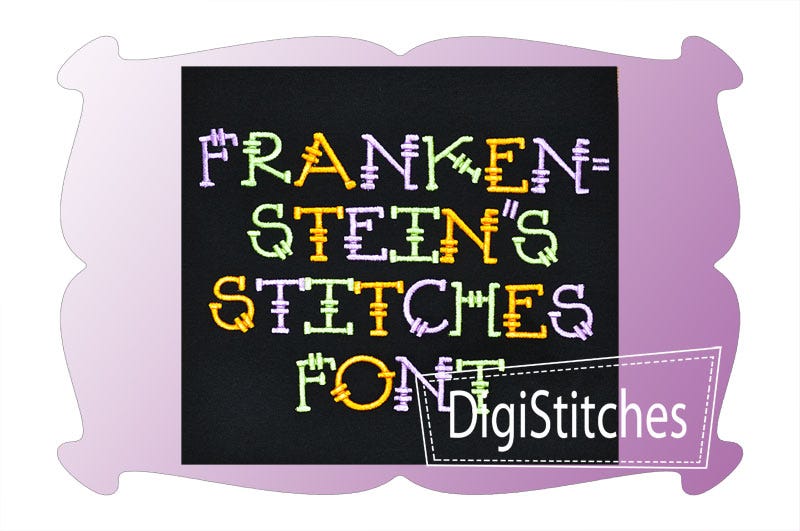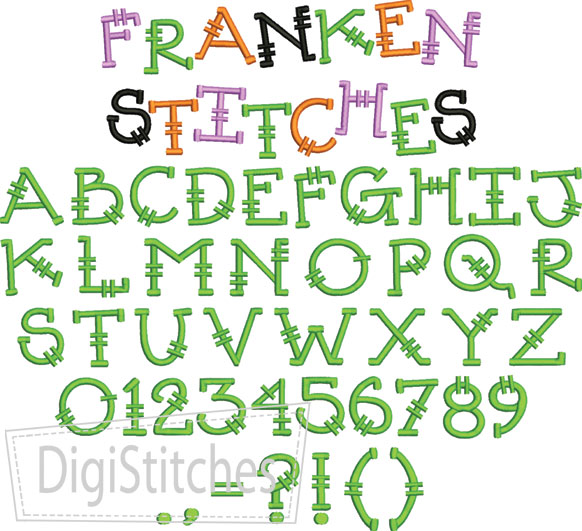
Frankenstitches Satin Stitch Embroidery Font
Frankenstitches Embroidery Font
Frankenstitches is the perfect font for Halloween shirts, tote bags and buckets.
With it's wonky letters with dashes (stitches) it's a versatile font and works for both girls and boys.
Featuring super bold letters that really stand out on t-shirts and projects.
Upper case letters A thru Z, numbers 0-9, and punctuation as shown.